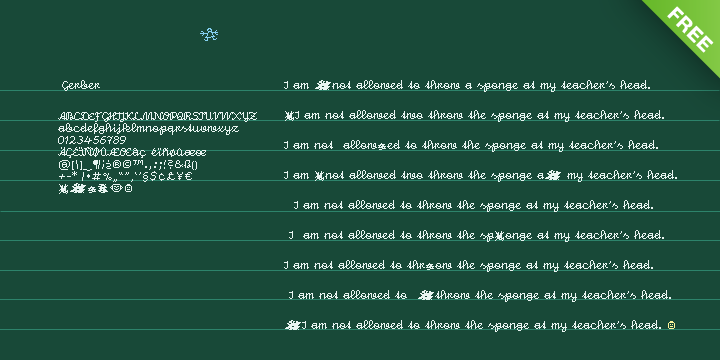
Gerber is a fully accented pixel font for use at 10 pt size (or multiples). Gerber is supposed to look like children’s writing on a chalkboard and it is named after an Austrian novel about an unhappy schoolboy.